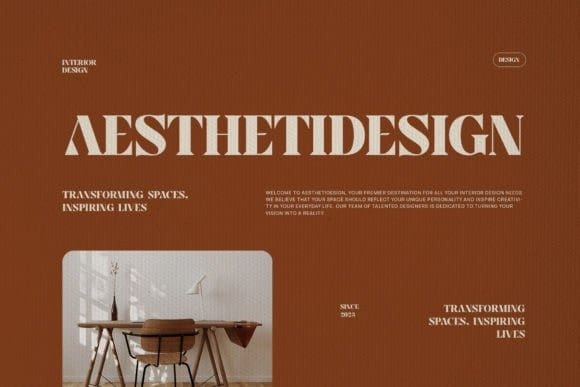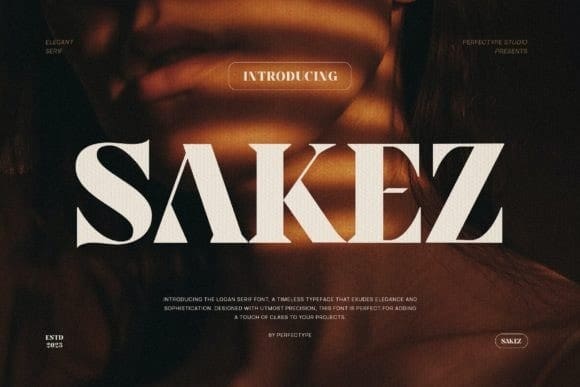
Sakez Font
Sakez Font is a unique and very elegant font for branding and logo designs. Elegant serif typeface combined with a classy and modern style. This type of font is very suitable for your various needs such as branding projects, logos, wedding designs, social media posts, advertisements, product packaging, product designs, labels, photography, watermarks, invitations, stationery, and any project, created with high level of readability.